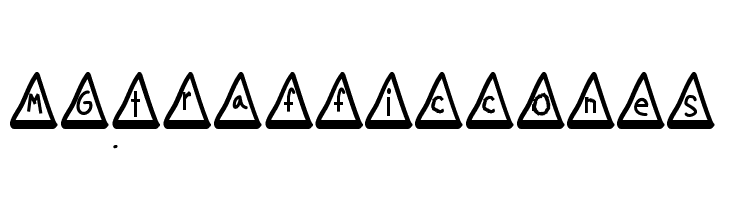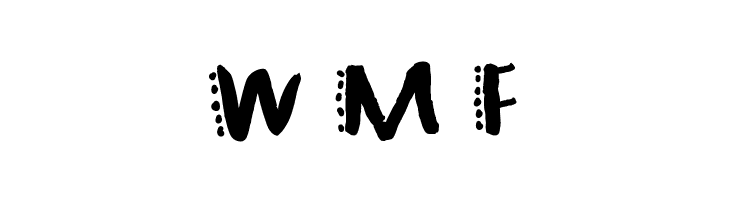
A bold, artistic display font with unique geometric and decorative elements.
A bold, geometric display font with playful, artistic elements.
A bold, eclectic display font with dynamic and playful letterforms.
A dynamic and eclectic display typeface with diverse styles and bold visual impact.
A bold, eclectic display typeface with diverse, playful character designs.
A decorative and eclectic typeface with unique artistic elements in each character.
A bold, eclectic display typeface with diverse decorative elements.
A textured, stippled font with a handcrafted, artistic feel.